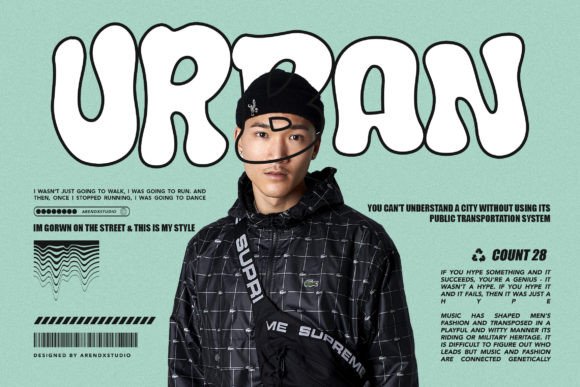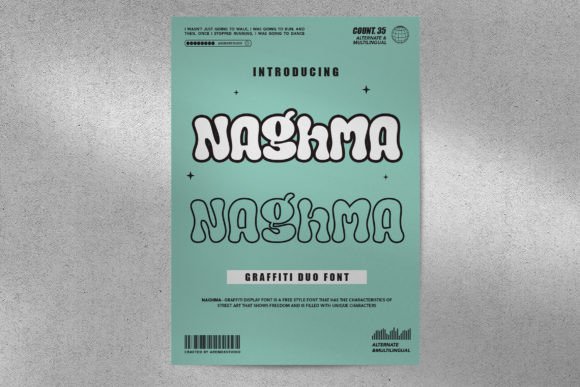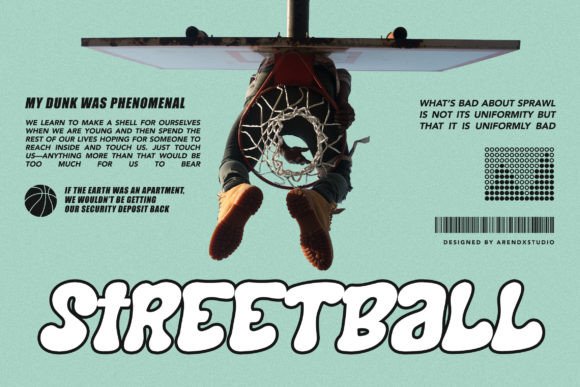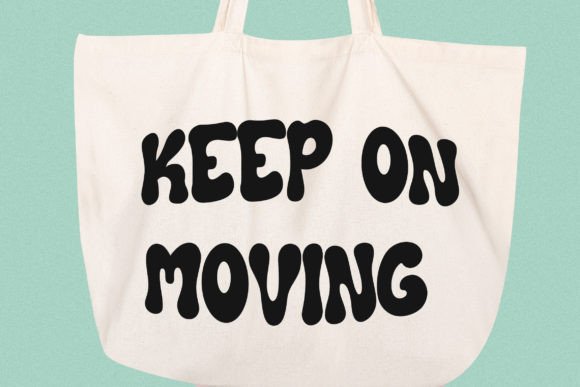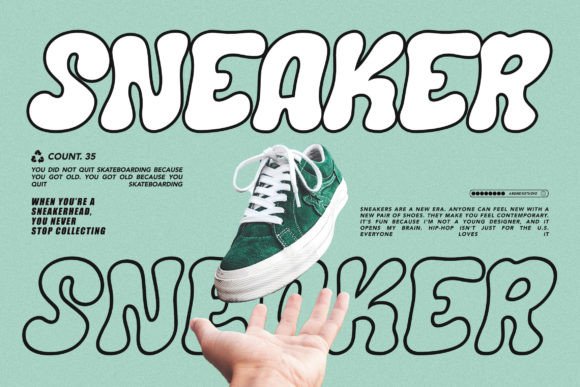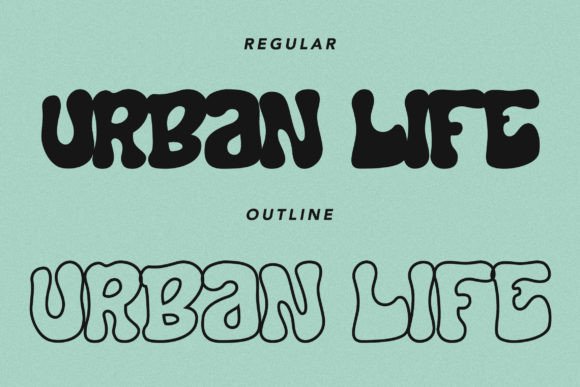
Introduction to Naghma Font
Naghma – Groovy Display Font This is a freestyle font that has the characteristics of street art that shows freedom and is filled with unique characters.
Naghma – Groovy Display Font This is a freestyle font that has the characteristics of street art that shows freedom and is filled with unique characters
Key Features of Naghma Font